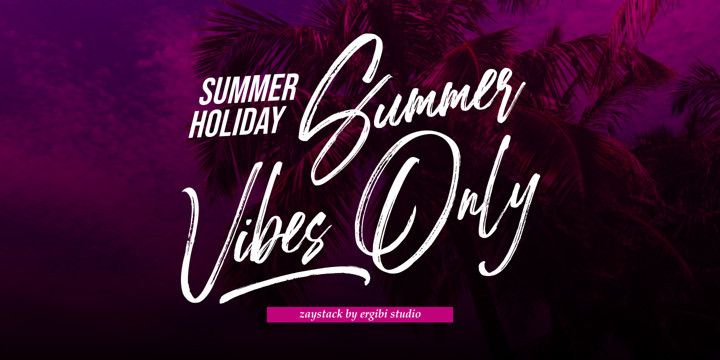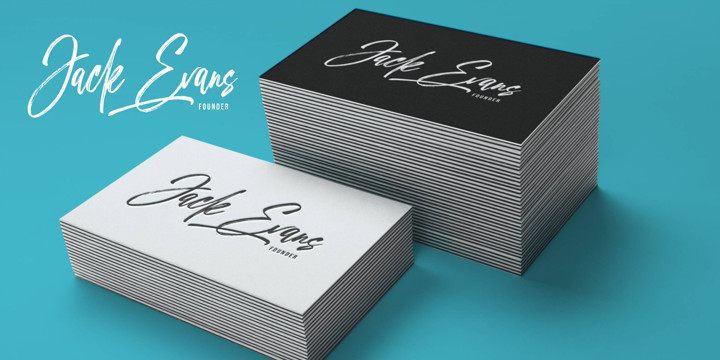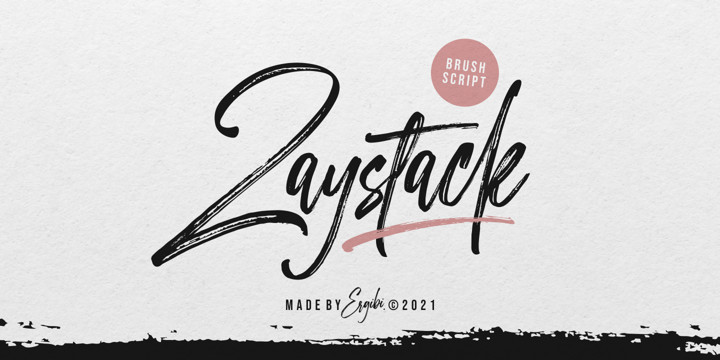
Zaystack Font
Zaystack is a handwriting with brush effect that comes with a style that seems real. This font style inspired by luxury goods and branded makes in many ways for your latest project. Zaystack is perfect for logos & branding, photography, invitations, watermarks, advertisements, product designs, stationery, wedding designs, labels, product packaging, special events or anything that requires handwritten content.
Zaystack Also available for some lowercase characters that have swash, as well as multilingual. This can be accessed easily via opentype in Photoshop / Illustrator.